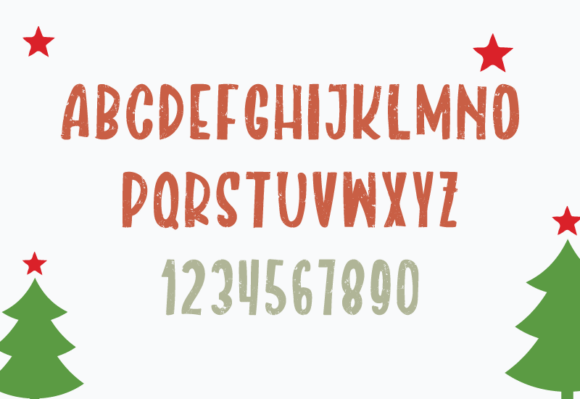
Add a Festive Touch to Your Holiday Designs with Colorful Christmas Font
The holiday season is upon us, and with it comes the joy of creating festive and fun designs that capture the spirit of Christmas. Whether you’re a designer, crafter, or simply someone who loves the holiday season, having the right tools and resources can make all the difference in bringing your ideas to life. That’s where the “Colorful Christmas” display font comes in – a hand-drawn, grunge-effect font that’s perfect for adding a touch of holiday cheer to your projects.
A Hand-Drawn Font with a Vintage Charm
The Colorful Christmas font is a unique and eye-catching display font that’s been carefully crafted to bring a sense of warmth, nostalgia, and playfulness to your holiday designs. Its hand-drawn, grunge-effect style gives it a charmingly imperfect feel that’s reminiscent of vintage holiday decorations and classic Christmas cards. With its bold, playful strokes and colorful appearance, this font is sure to add a festive touch to any project.
Perfect for a Variety of Holiday Projects
Whether you’re designing Christmas cards, holiday invitations, gift tags, posters, or seasonal branding, the Colorful Christmas font is the perfect choice. Its versatility and charm make it ideal for a wide range of projects, from DIY crafts to professional design work. Here are just a few ideas for how you can use this beautiful font:
- Christmas cards and holiday greetings
- Holiday invitations and party decorations
- Gift tags and wrapping paper
- Posters and flyers for holiday events
- Seasonal branding and packaging
- DIY crafts and scrapbooking projects
Why Choose the Colorful Christmas Font?
So why choose the Colorful Christmas font for your holiday designs? Here are just a few reasons why this font stands out:
- Unique and eye-catching: The Colorful Christmas font is a one-of-a-kind display font that’s sure to grab attention and add a touch of personality to your designs.
- Vintage charm: Its hand-drawn, grunge-effect style gives it a charmingly imperfect feel that’s reminiscent of vintage holiday decorations and classic Christmas cards.
- Playful and festive: The font’s bold, playful strokes and colorful appearance make it perfect for adding a festive touch to your holiday designs.
- Versatile: The Colorful Christmas font can be used for a wide range of projects, from DIY crafts to professional design work.
| Font Name | Colorful Christmas Font |
| Author | GraphicsNinja |
The Colorful Christmas font is a unique and eye-catching display font that’s perfect for adding a festive touch to your holiday designs. Its hand-drawn, grunge-effect style gives it a charmingly imperfect feel that’s reminiscent of vintage holiday decorations and classic Christmas cards. With its bold, playful strokes and colorful appearance, this font is sure to bring warmth, nostalgia, and a cheerful spirit to your projects. So why not give it a try and see how it can add a touch of holiday magic to your designs?